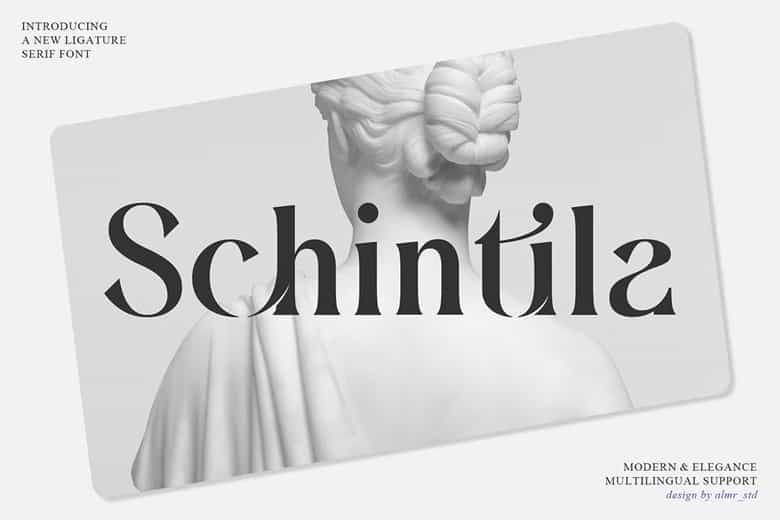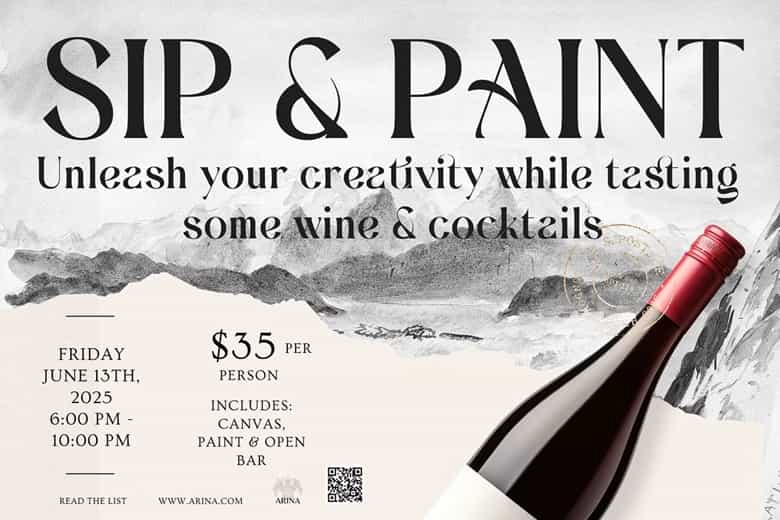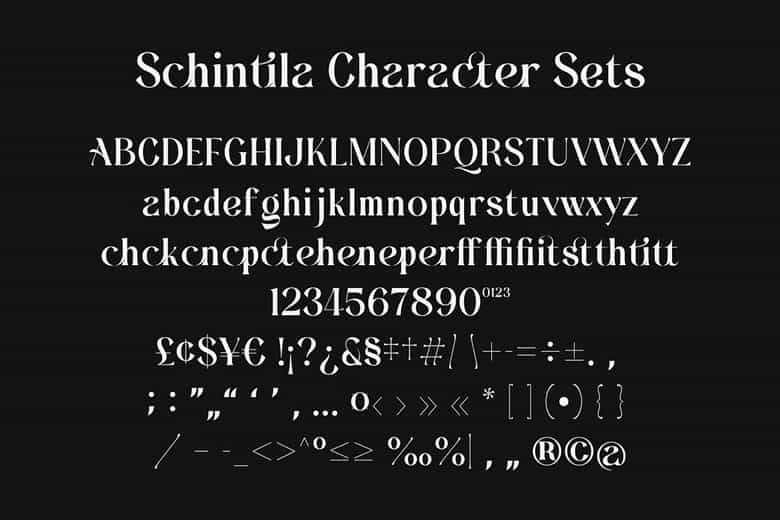
Discover Schintila Font, part of the Serif collection—a versatile and unique font perfect for adding a personal touch to your projects. Download it for free and enjoy crafting designs with style, from invitations to social media posts. This font is available exclusively for personal use, giving you the freedom to create without limits. Unlock your creativity with Schintila Font today!
Schintila is a new ligature serif font, This font is ideal in all your numerous needs, to be used on your branding needs, on your logos, on social media posts, on ads, labels, packages, on products, photography, wedding designs, watermarks, invitation product designs, stationeries and projects.